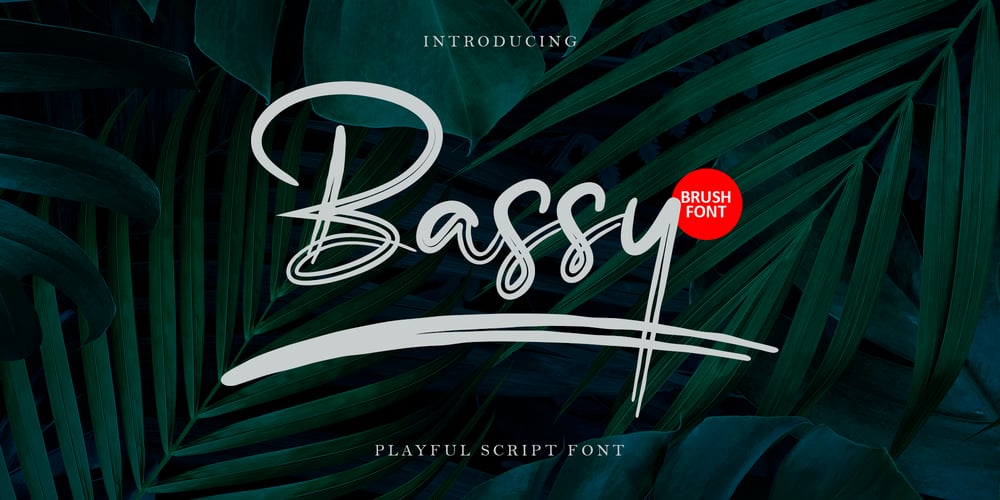
Bassy Font Family was designed by Erlangga Suherman and published by ErlosDesign. Bassy contains 1 styles and family package options. Bassy is an incredibly stylish script font which will look stunning in a wide variety of contexts. Created with the help of an outstanding brush pen, this font will elevate your projects to the highest level.This font is PUA encoded which means you can access all of the glyphs and swashes with ease!The file you will get is:• Works on PC & Mac• Simple installation• Encoded PUA Character – Can be accessed completely without additional design software.Enjoy!